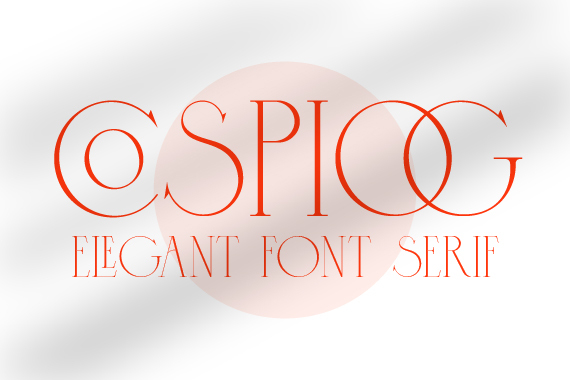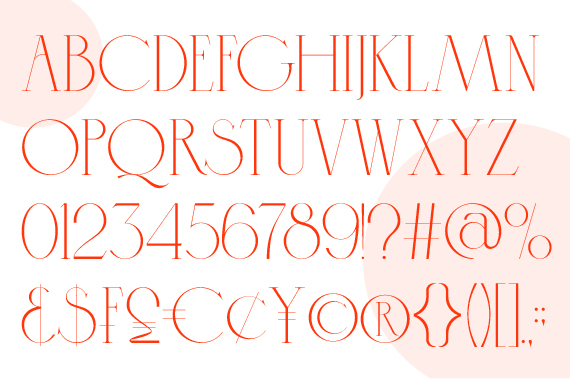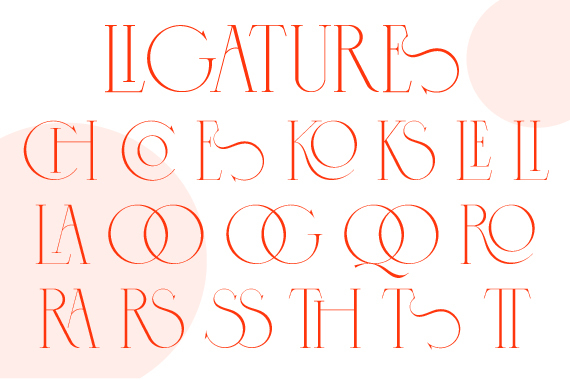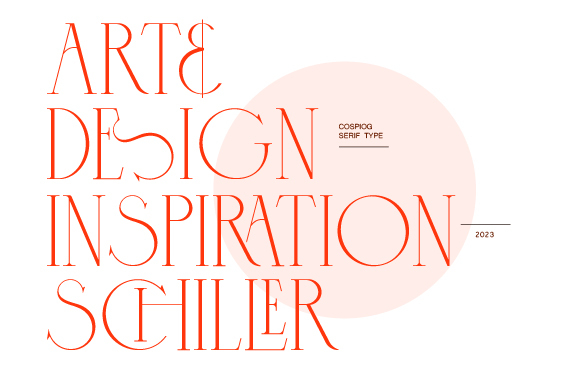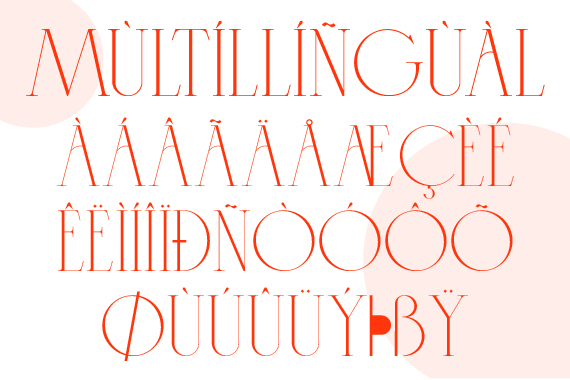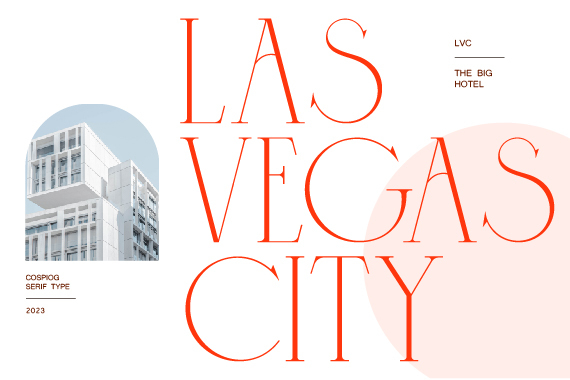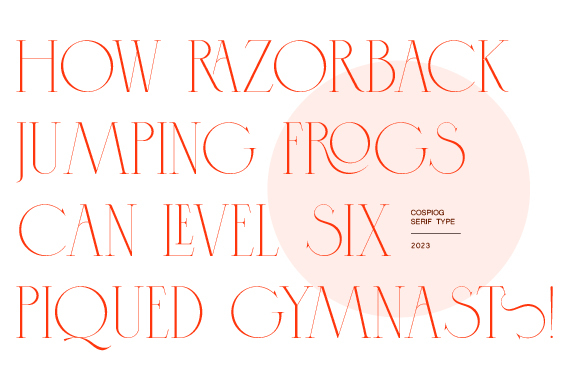
Cospiog - Elegant Font Serif
Introducing Cospiog which has an elegant looking design. This font has additional ligatures to give it a varied appearance. You can use Cospiog in modern and contemporary designs, and is suitable for use in various fashion media, posters, modeling magazines, typography, promotions and other digital media.
FEATURES;
+ Uppercase.
+ Foreign Support, Numbers and Punctuation.
+ Ligatures.
+ Regular & Italic.